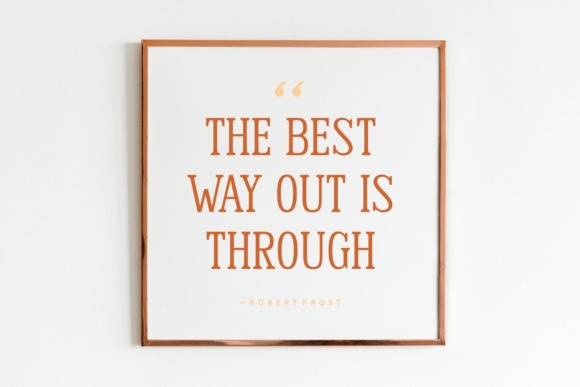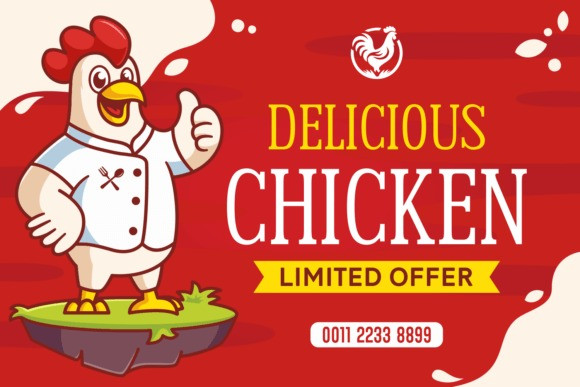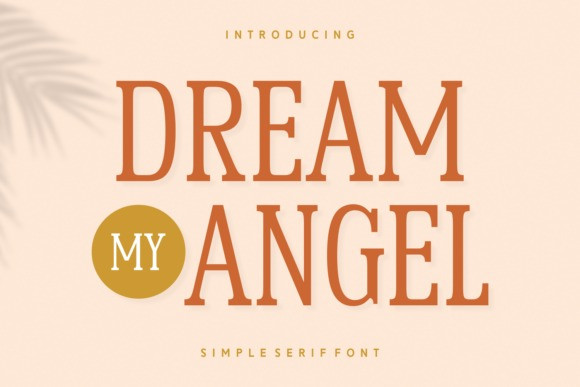
Dream My Angel Font
Dream My Angel Font encompasses an alluring blend of serif fonts, exuding elegance and modernity, imbued with a photographic essence and distinctive accents. Perfect for apparel design, its authentic strokes marry well with the aesthetics of book covers and textual content. Simultaneously subtle yet commanding, it breathes life into branding collaterals, seamlessly fitting in an elegant card or pristine packaging. Designed for the contemporary, its allure extends to magazine layouts, leaving a hint of sophistication on every page. The smooth, trending edifice morphs your words into inspiring quotes, embraces logos with finesse, and dresses up your T-shirts with an undeniable appeal. Transform your vision into an ethereal reality with the “Dream My Angel” font!